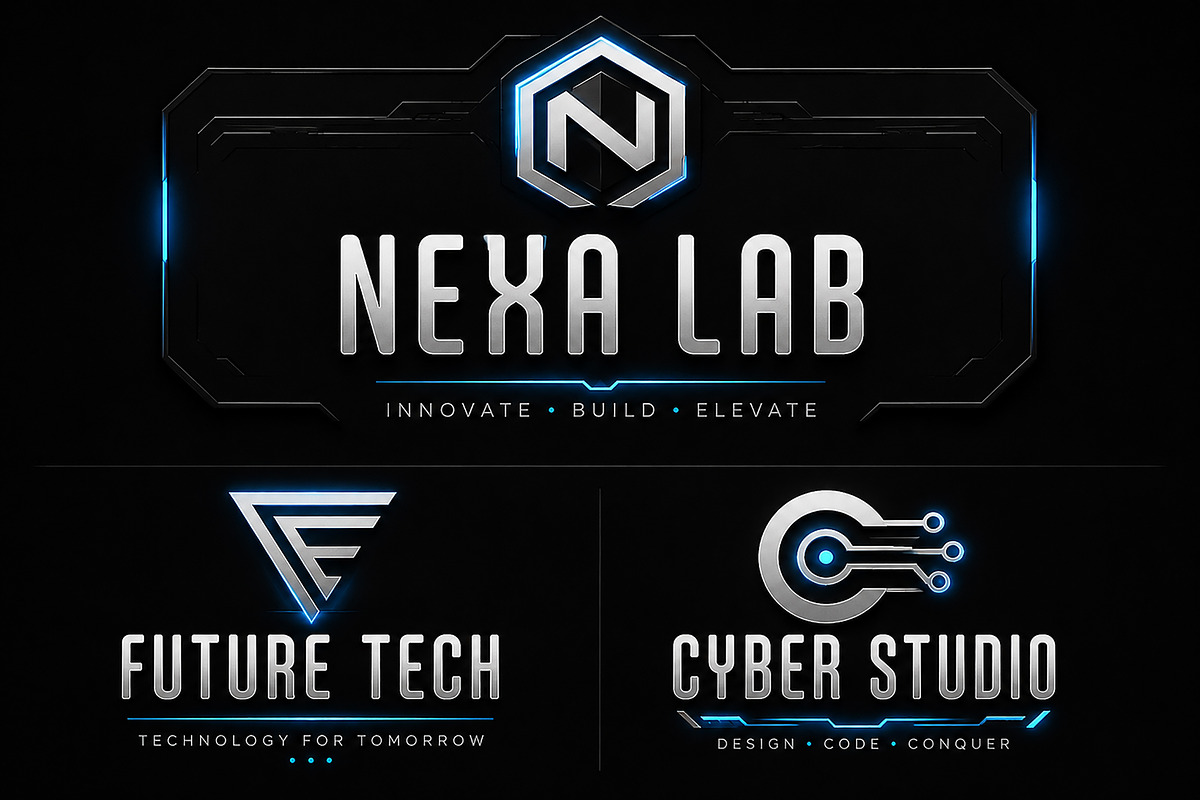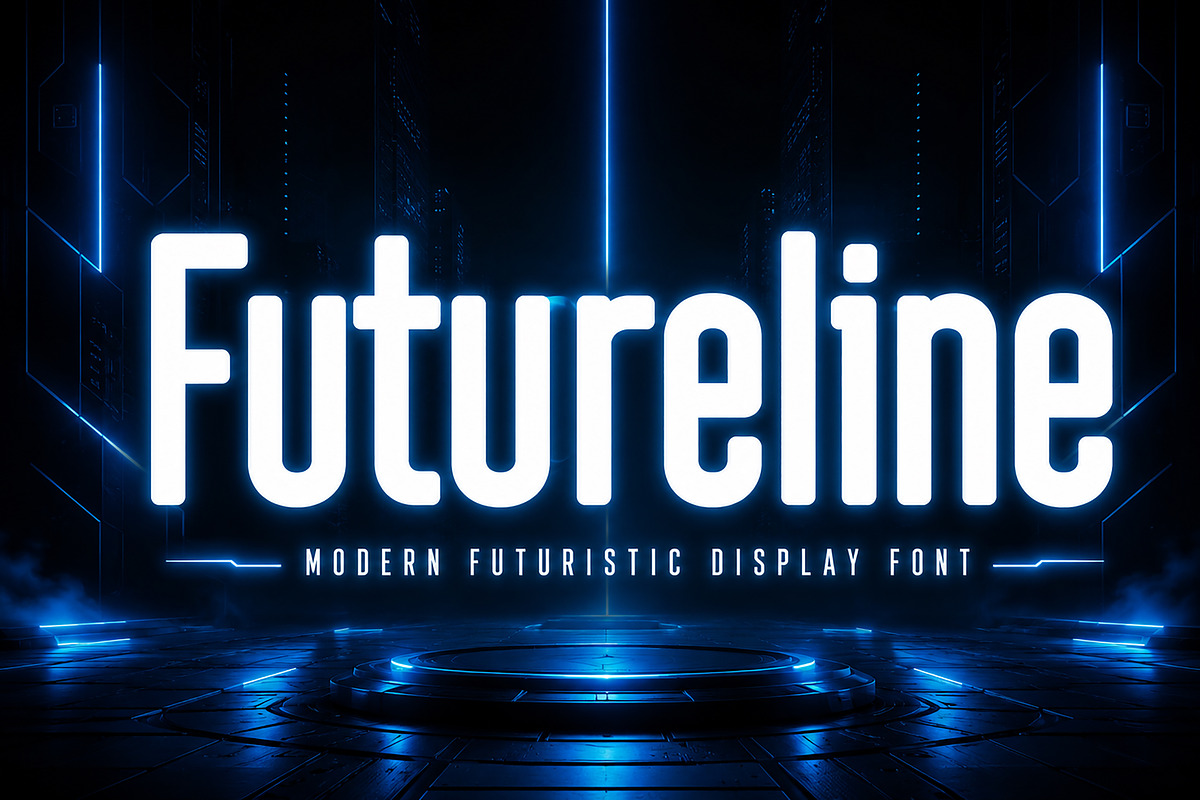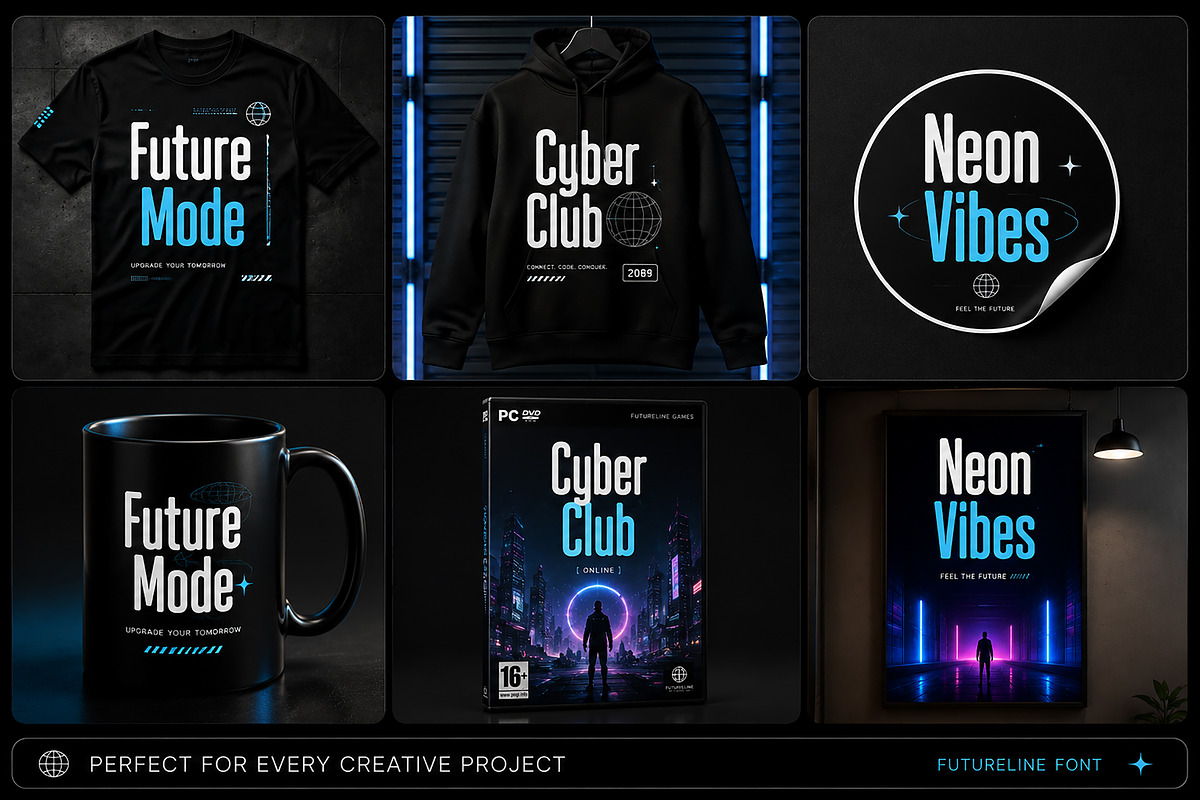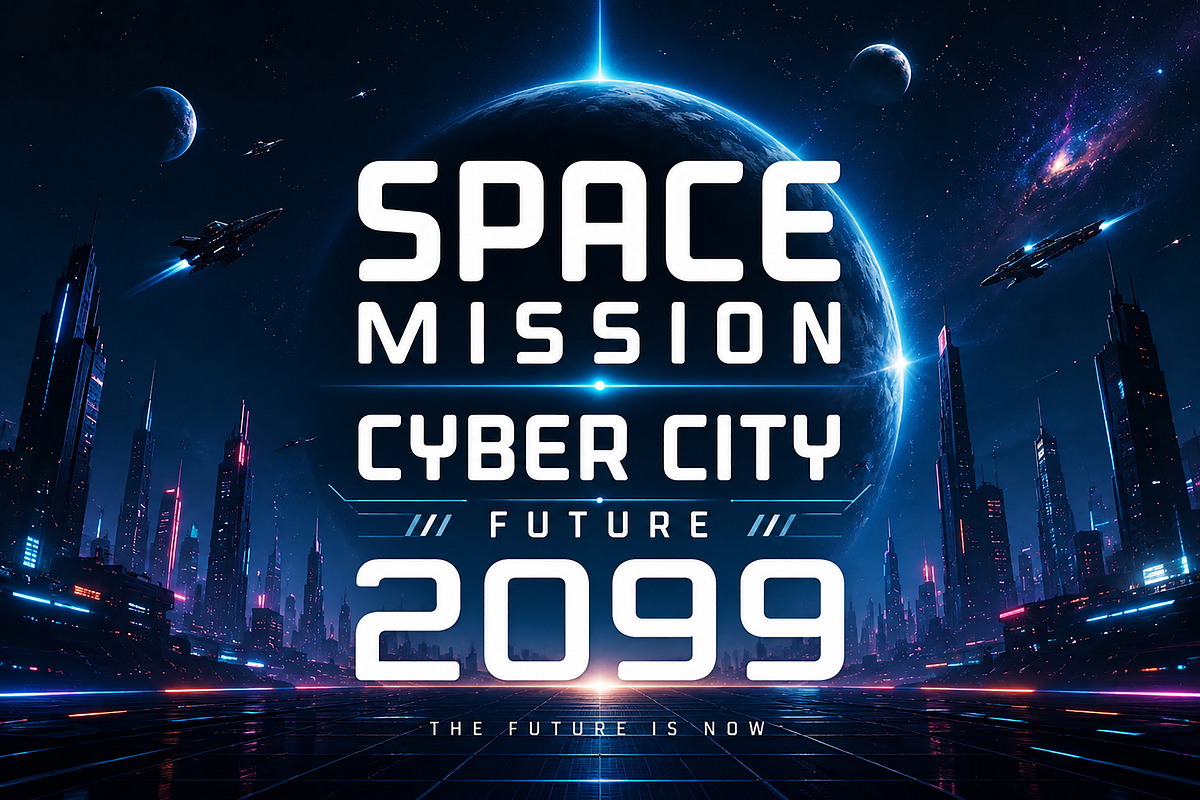
Futureline
Futureline – Modern Futuristic Display Font
Description
Futureline is a sleek and modern futuristic display font designed to bring a cutting-edge, high-tech feel to your creative projects. With its tall proportions, rounded corners, and clean geometric structure, Futureline delivers a bold sci-fi aesthetic while maintaining excellent readability.
Perfect for technology branding, gaming titles, esports graphics, futuristic logos, movie posters, YouTube thumbnails, UI designs, startup branding, product packaging, and digital marketing materials. Whether you're designing for a cyberpunk-inspired project or a modern tech brand, Futureline adds a professional and futuristic touch that instantly stands out.
Uppercase & Lowercase Characters
Clean Futuristic Design
Futuristic Logos
Technology Branding
Gaming & Esports Designs
Sci-Fi Posters
Movie Titles
YouTube Thumbnails
Mobile App Designs
Website Headers
Startup Branding
Digital Advertising